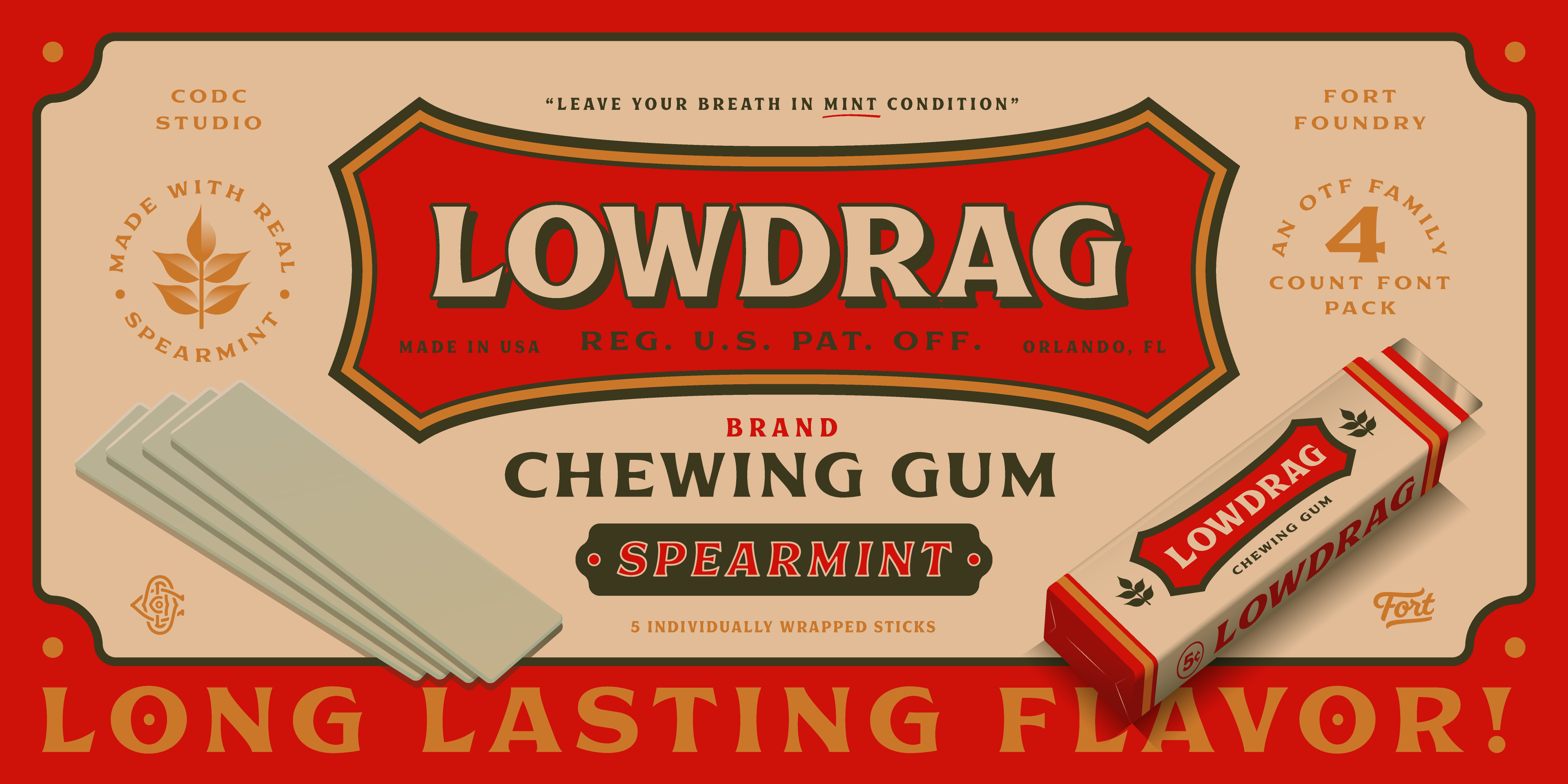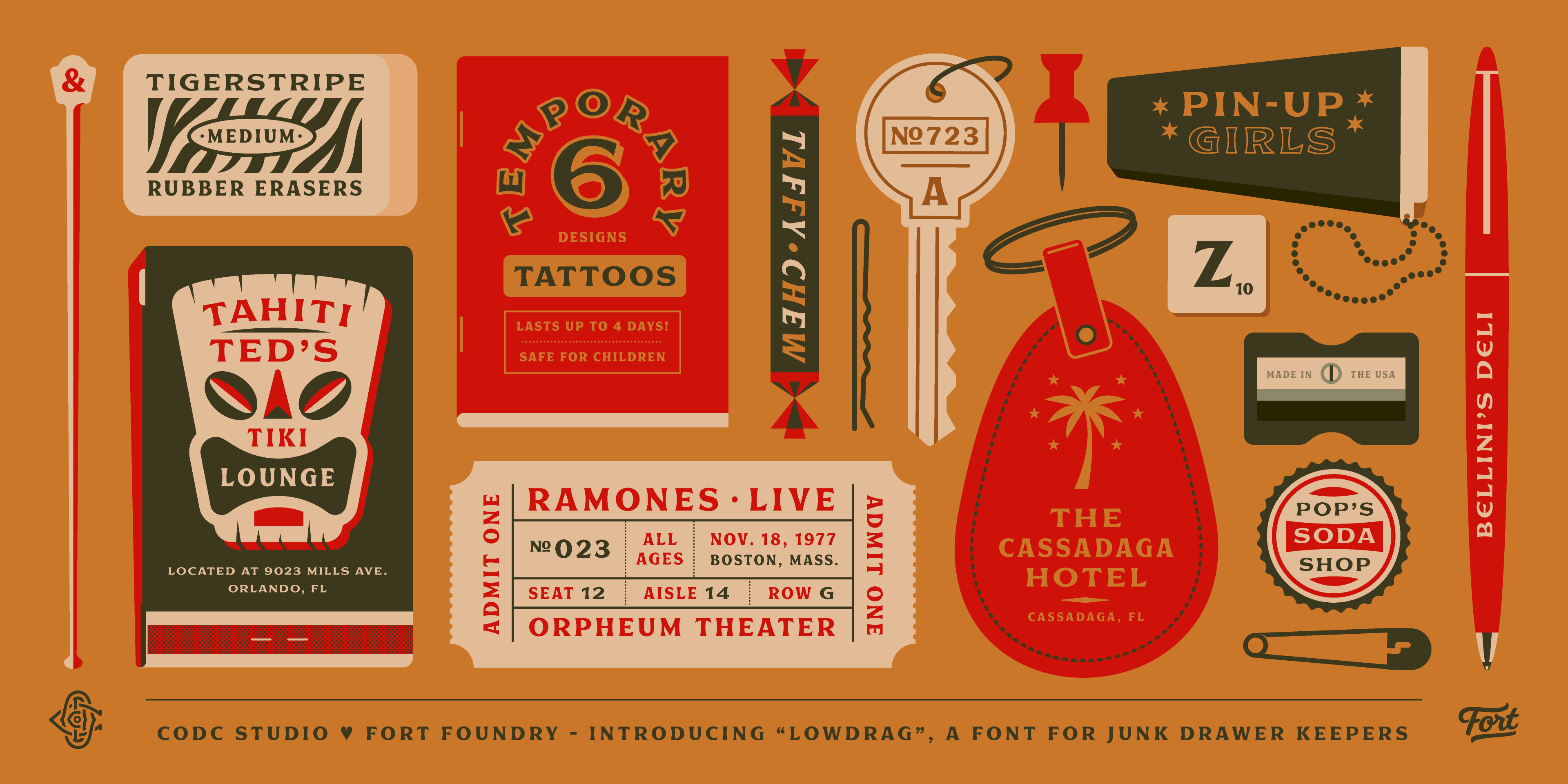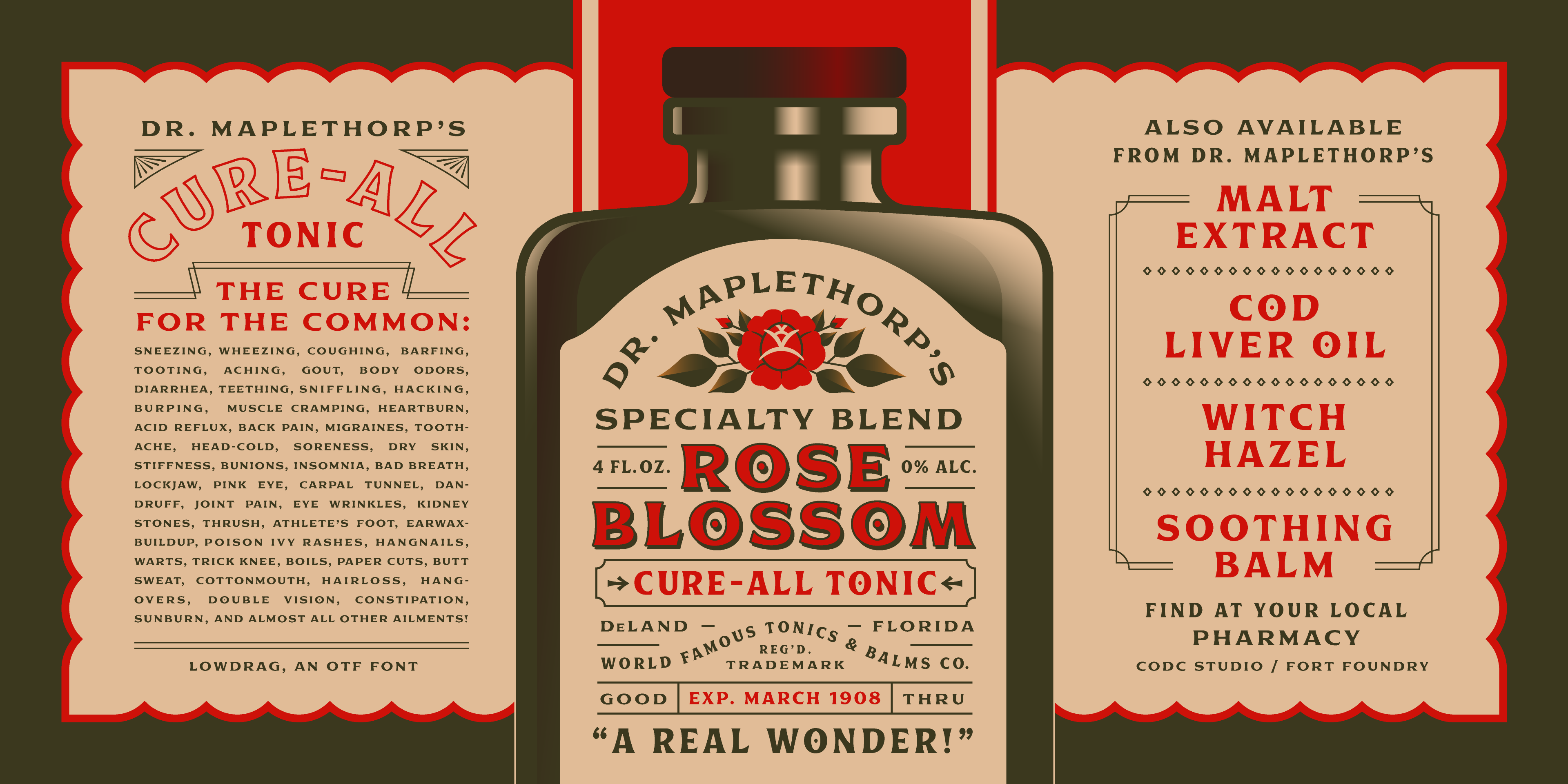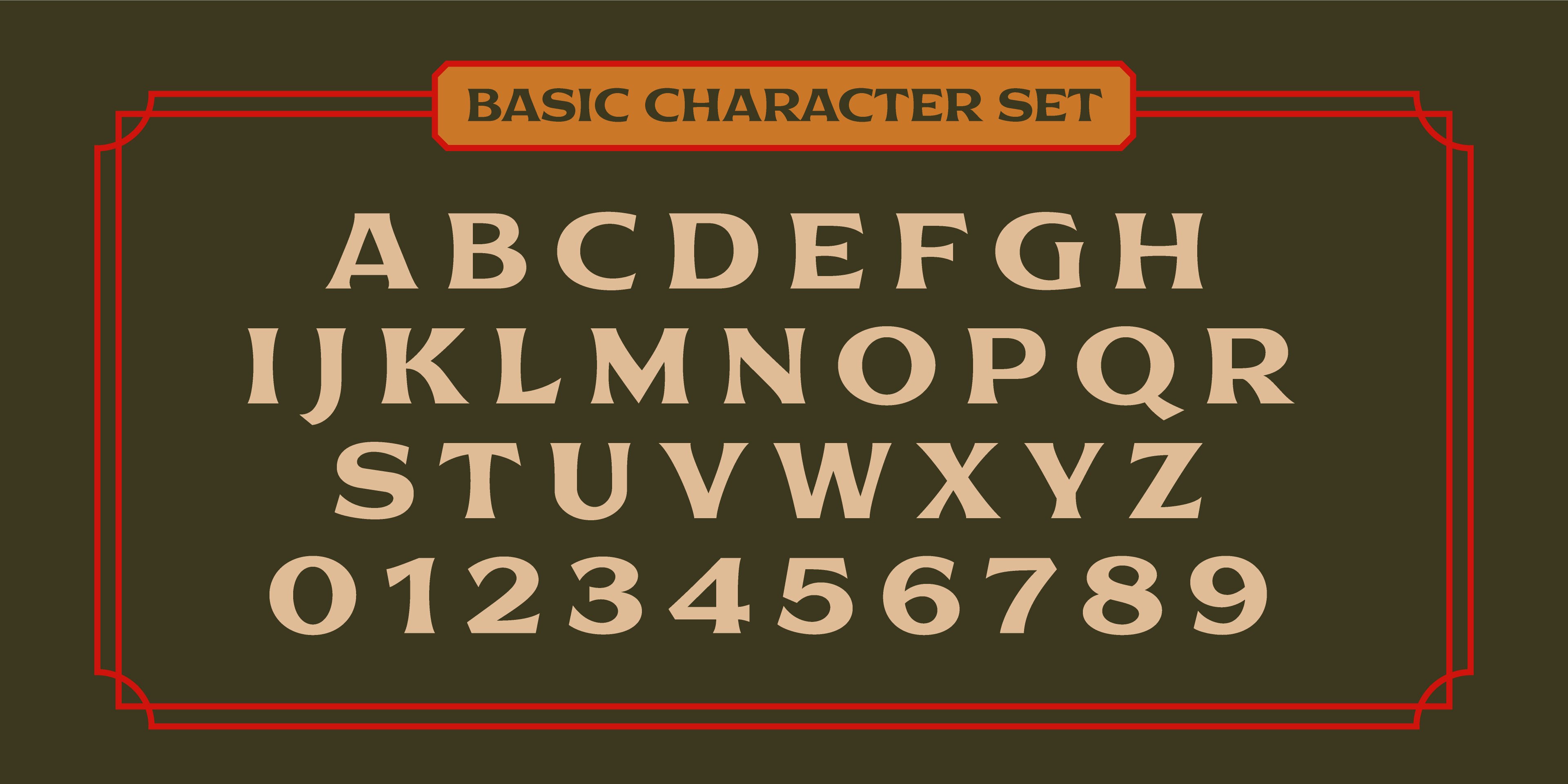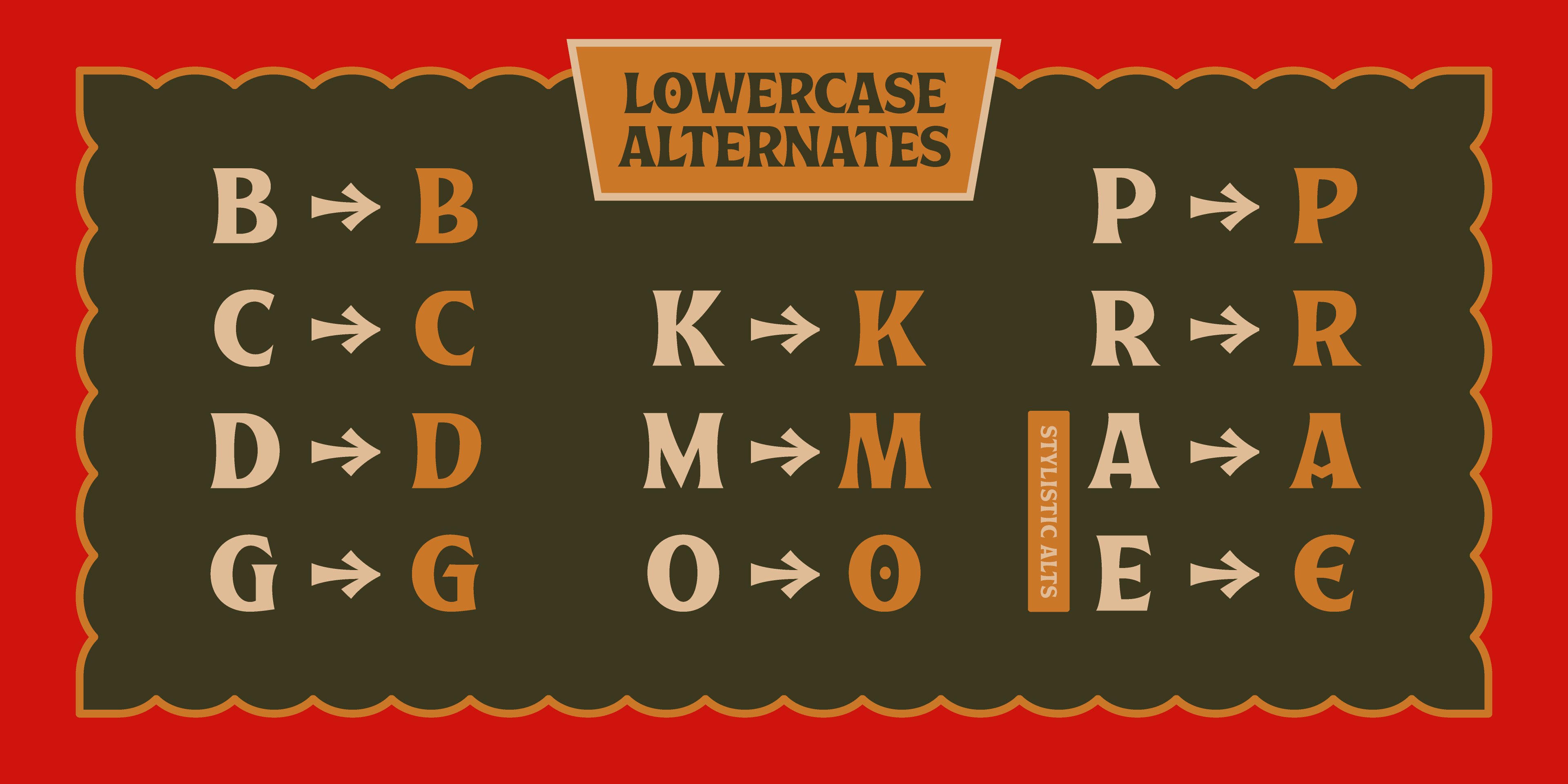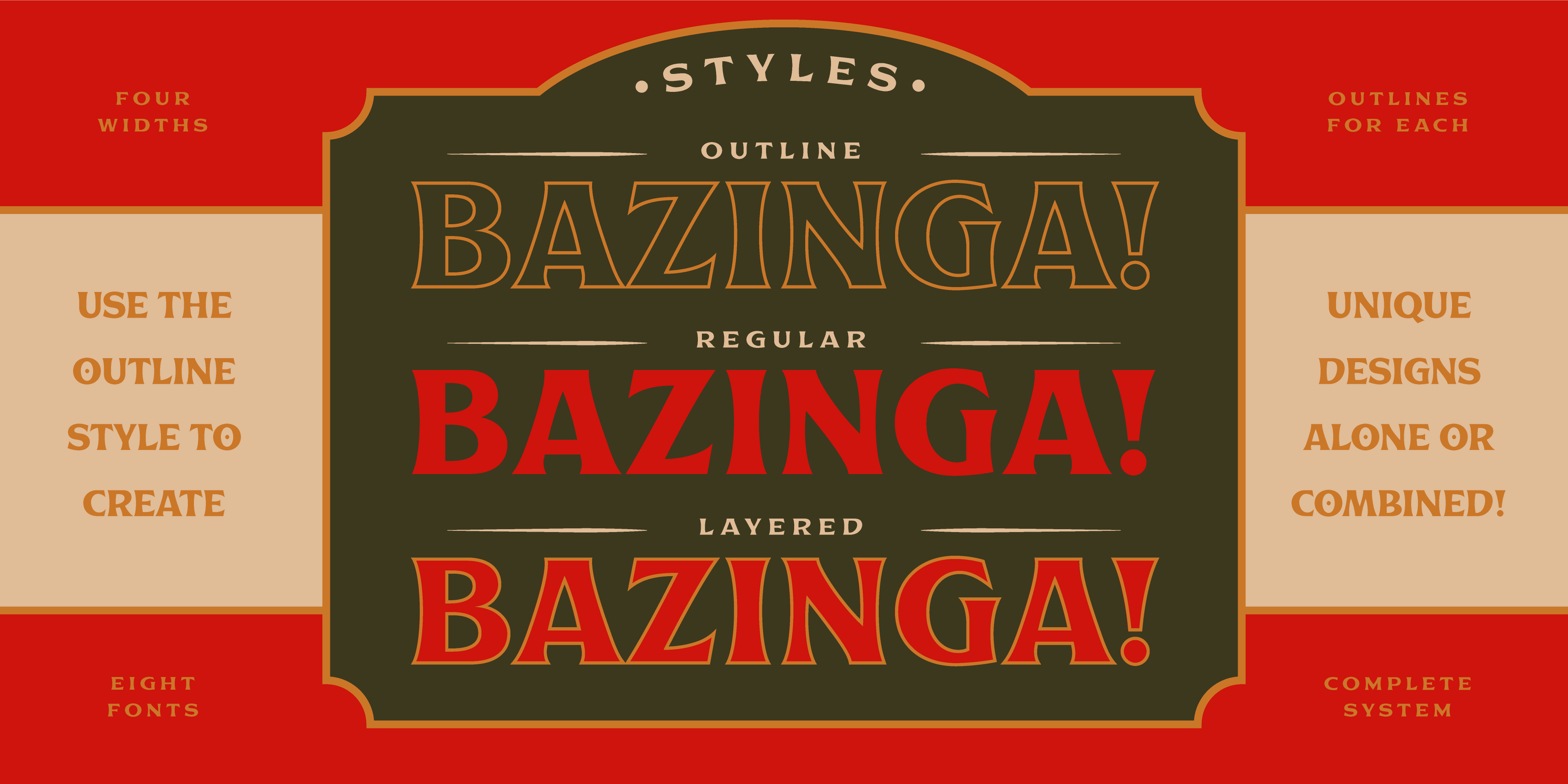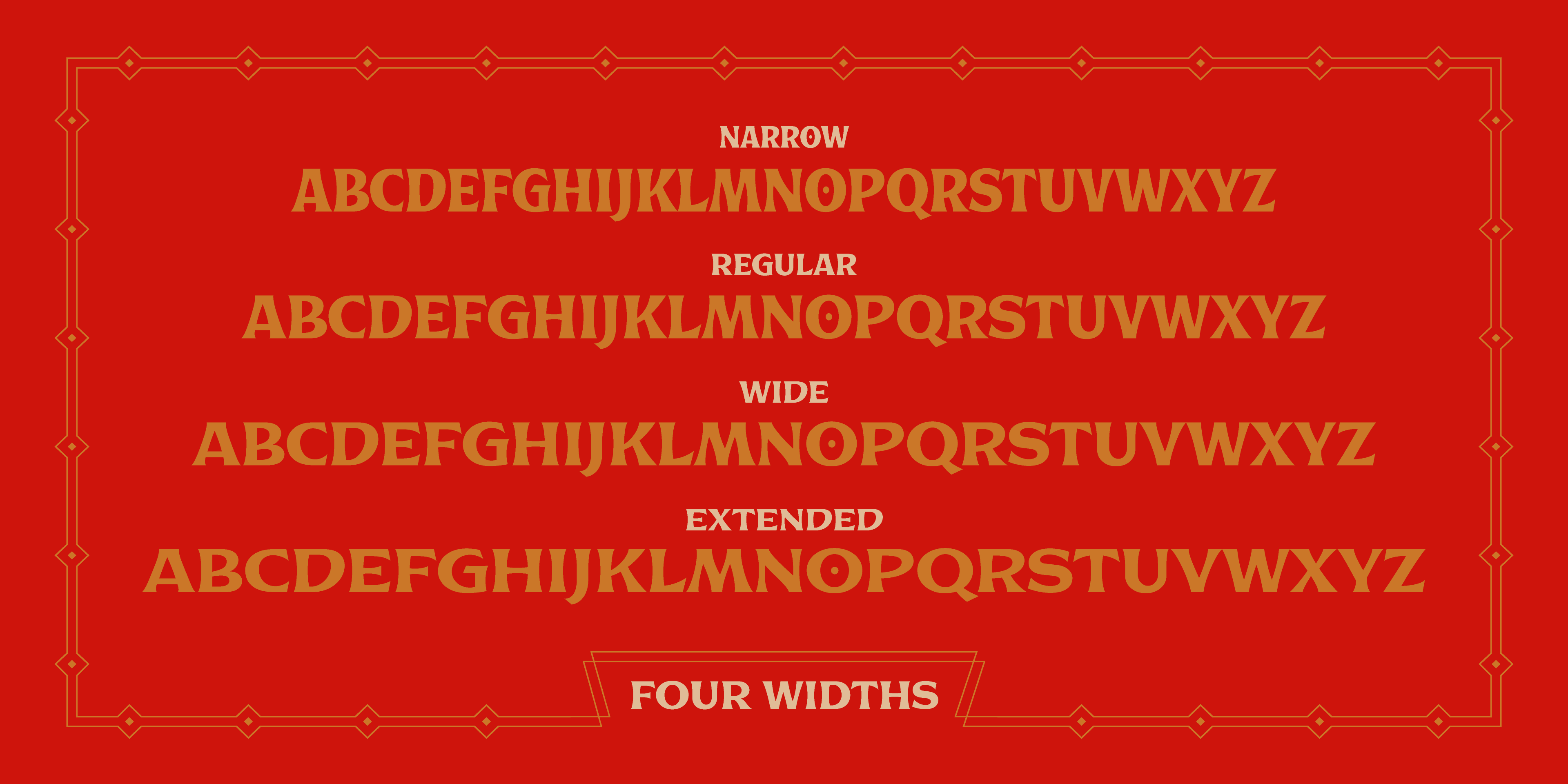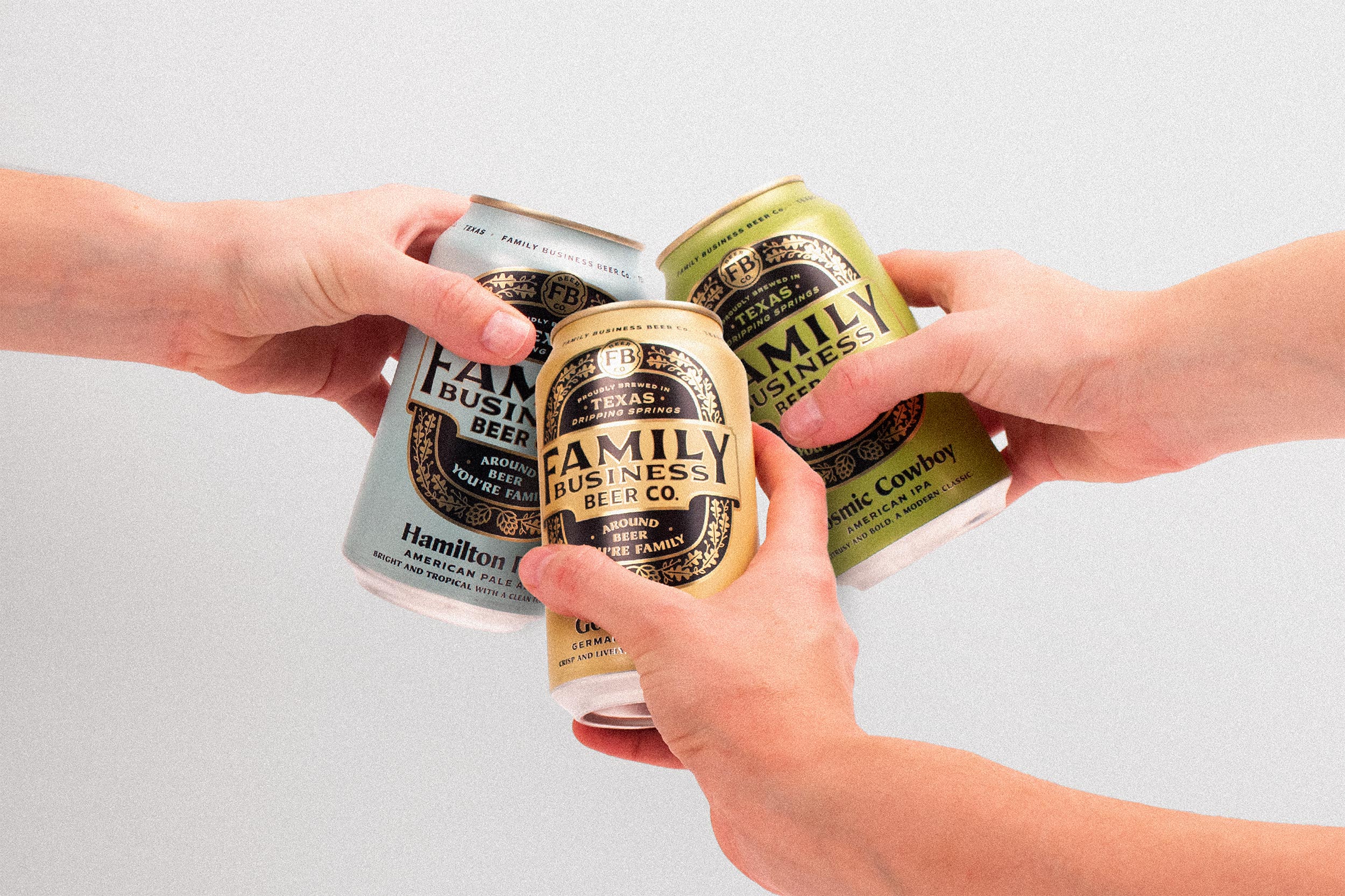
Lowdrag
Category
Serif
Features
Lowercase Alternates
Stylistic Alternates
Extra Symbols
Mojo has a brand, and it uses Lowdrag.
Designed by Clark Orr, Lowdrag can race to the scene of your next project with vintage charm and flair. Like an old friend with new sideburns, it's got its quirks, but retains some familiar charm. Take it for a spin on a spirited label or make headlines for that new gig you got in town. Lowdrag won't promise that people will show up, but at least the flyer will look nice.